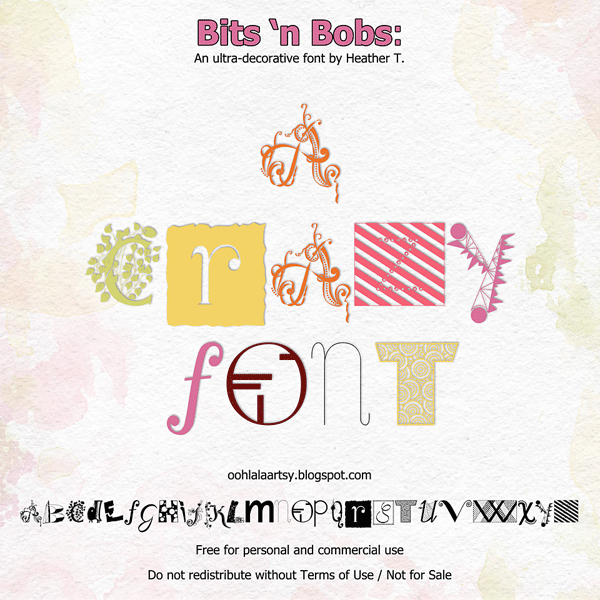
Preview and download BitsNBobs Font. Created by Heather T. in Fancy Decorative styles with 100% Free license.
Font name: | BitsNBobs |
Author: | Heather T. |
Note by Heather T. | |
This is actually a digitized (and cleaned up!) version of an alphabet I drew on random bits of painted papers I found on my art desk one night... =) Free for personal or commercial use. May not be sold. MUST be accompanied by the Terms of Use .pdf if redistributed. |